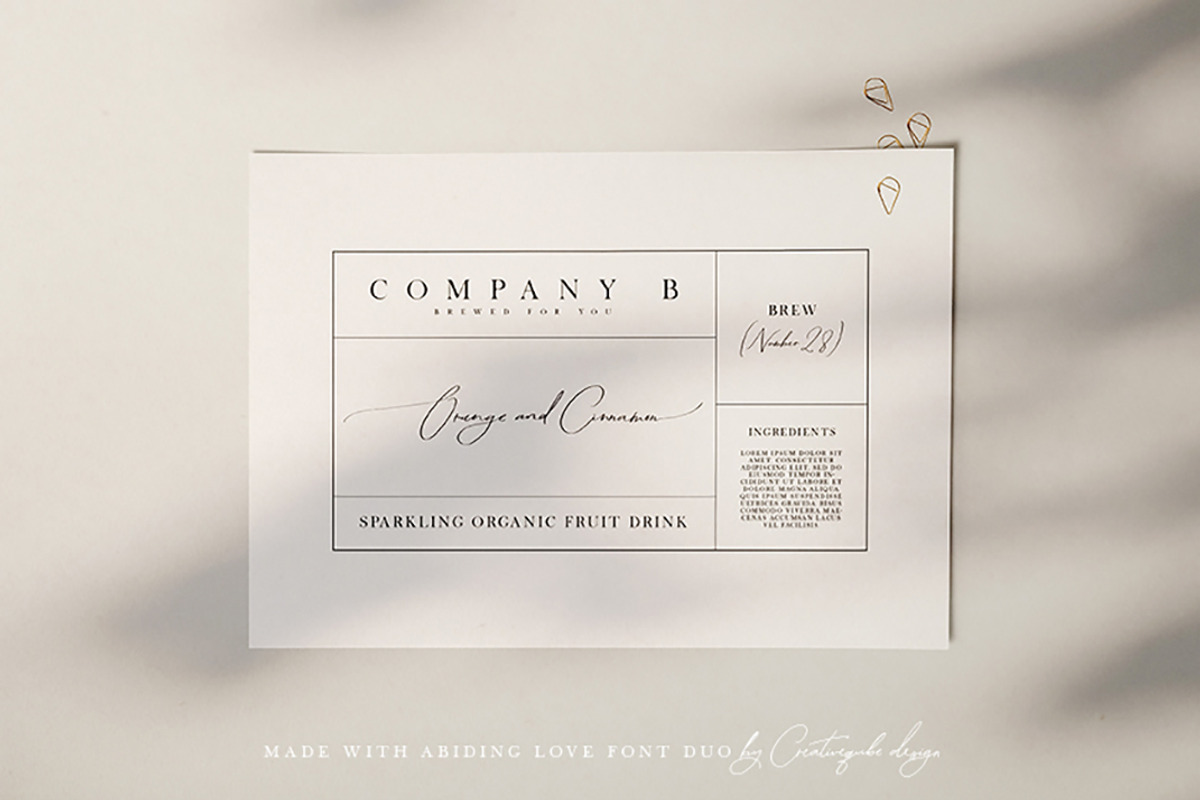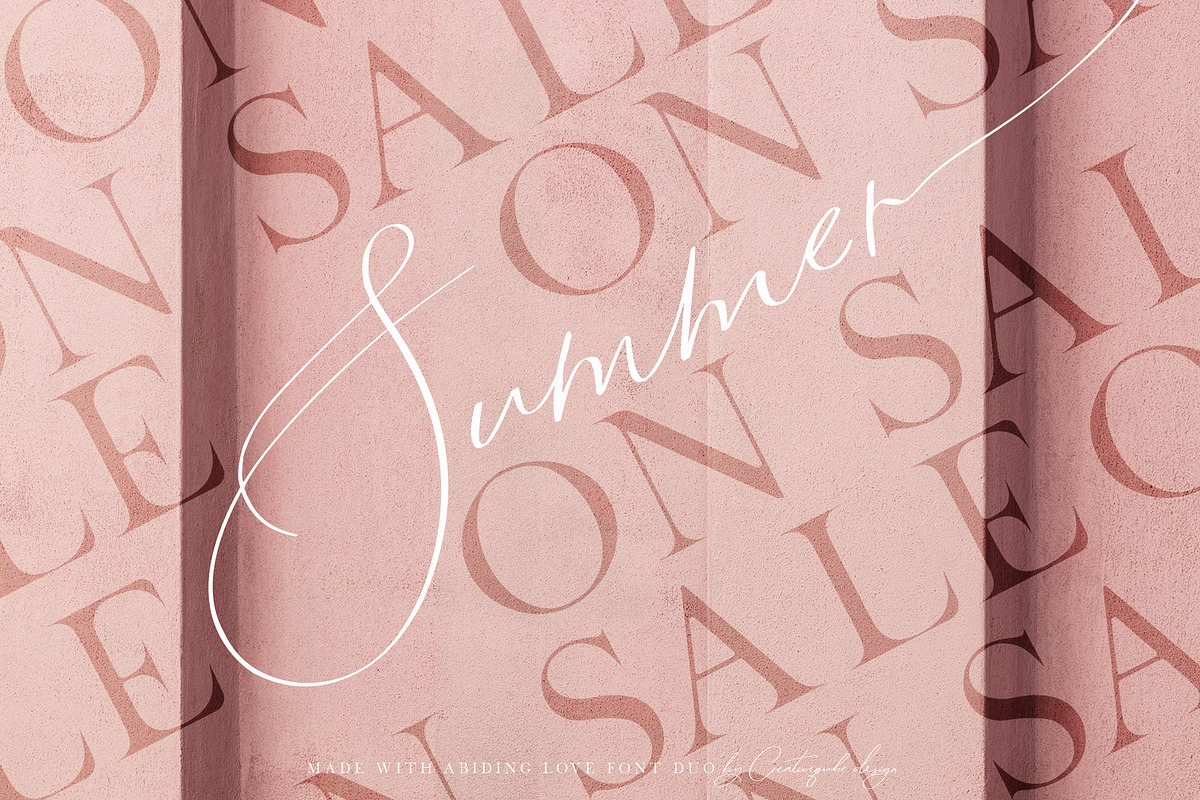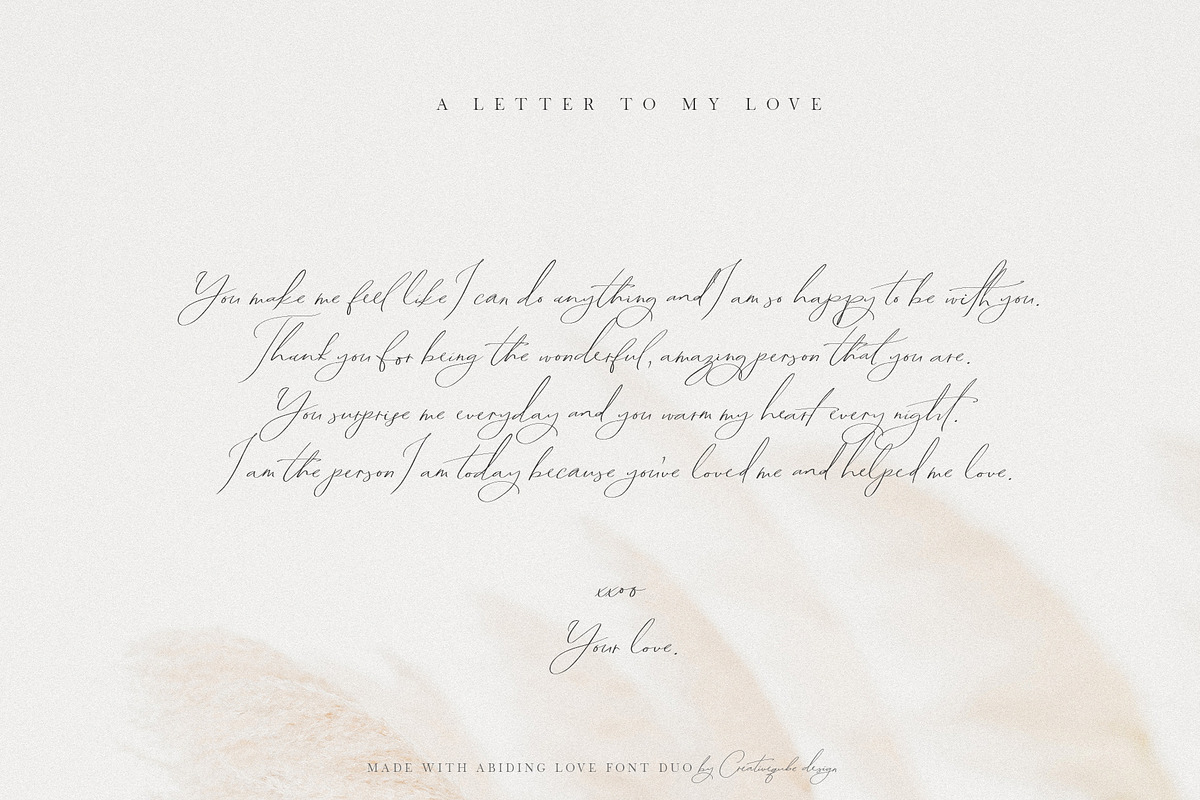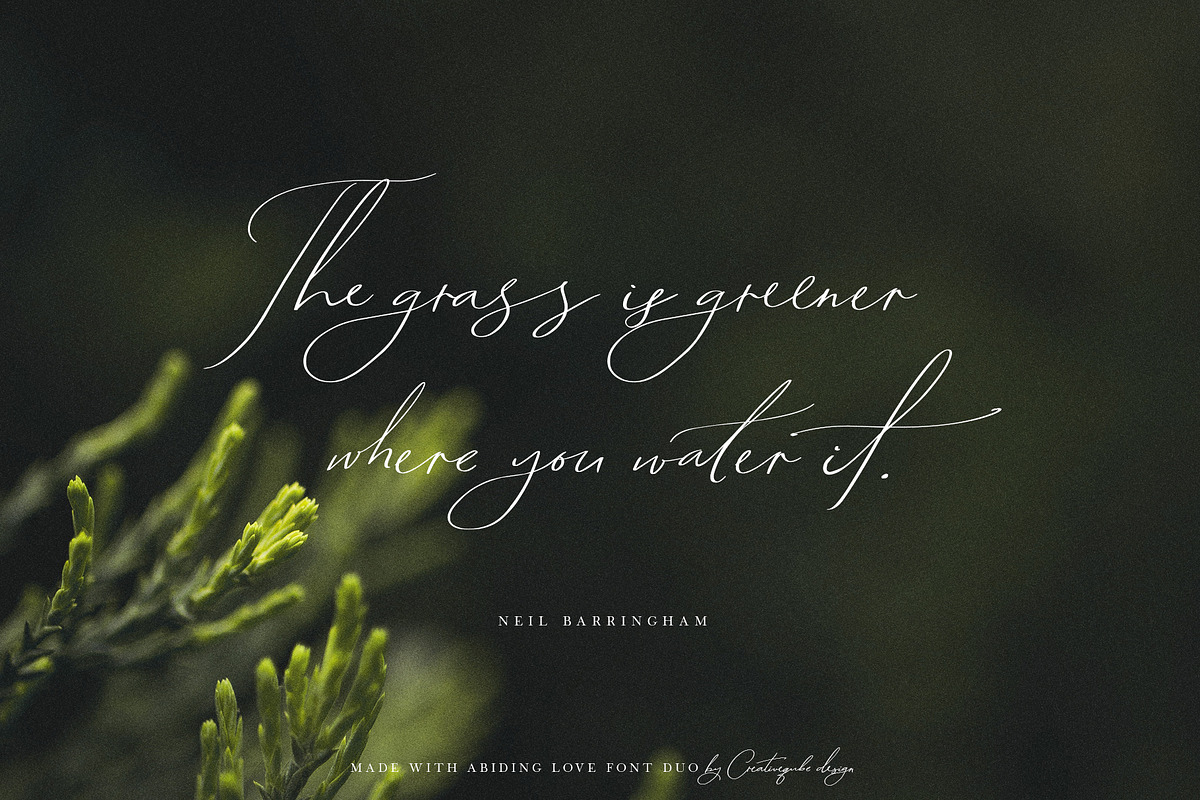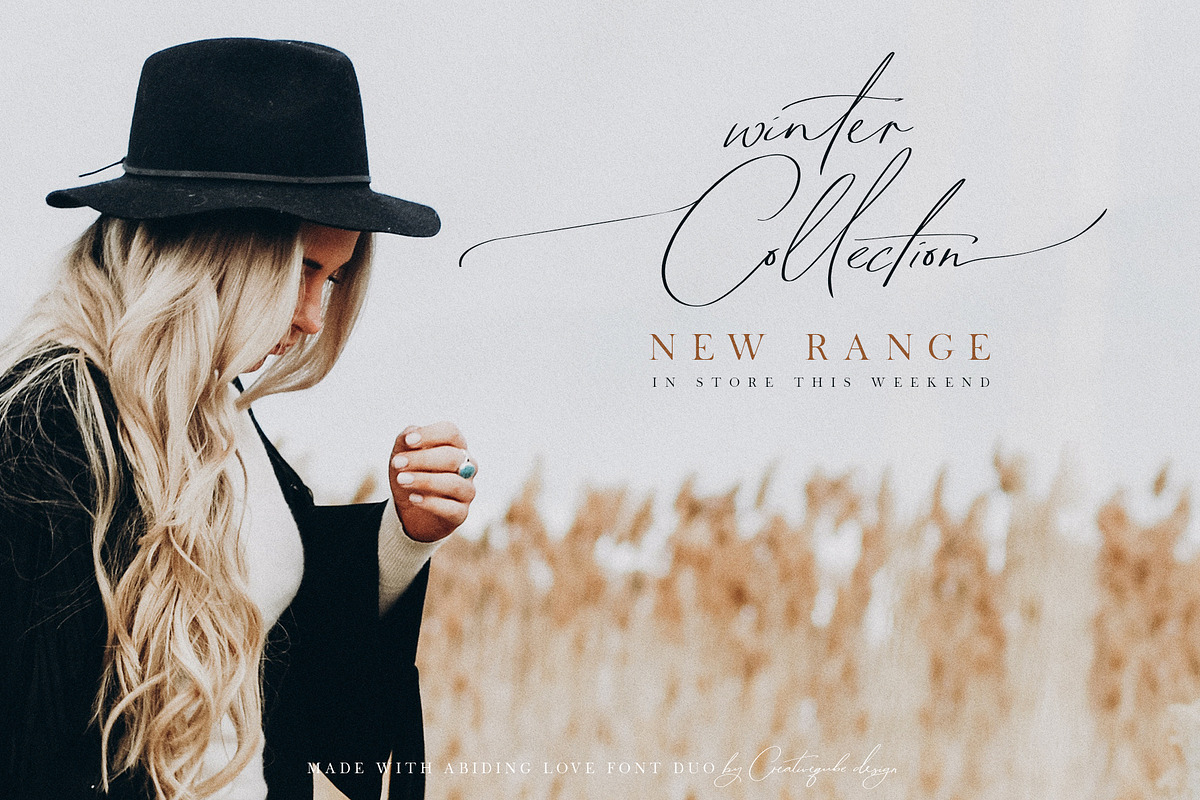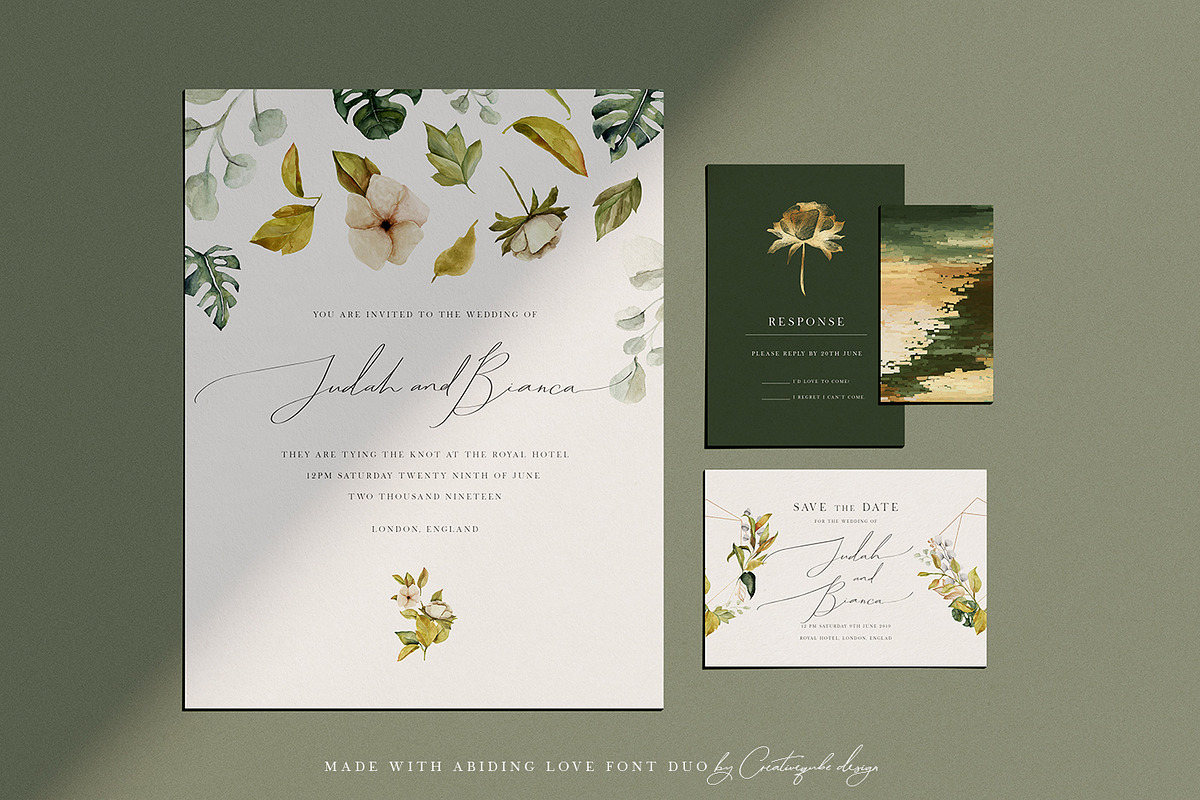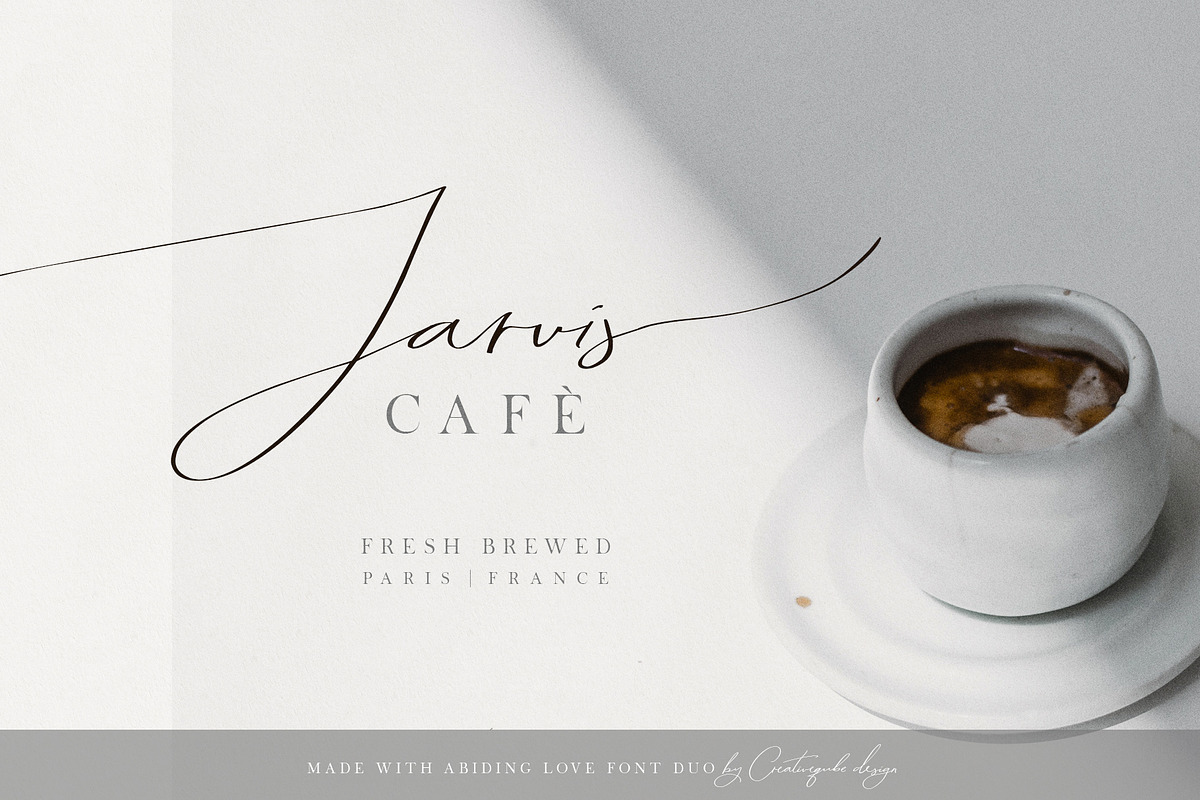
Abiding Love Collection Fonts
Abiding Love is a gorgeous trendy font duo that makes for stunning logos, quotes, wedding invites, blog posts, Instagram, and more!
They pair beautifully together in all kinds of applications. The serif looks gorgeous with tracking set at 300, as well as where it's normal setting at zero.
Abiding Love Script includes over 100 ligatures to make everything look perfectly natural and hand written, and there is a full set of lowercase alternates for each letter as well. These are set as ending letters in the regular script font file, (activate the Contextual Alternates button in the Character Panel to see this) plus as the standard letters in the Alternates font file. And then there is the Swashes set! These are in another font file name Abiding Love Swashes. There is left/beginning swashes for the uppercase and right/ending swashes for the lowercase. And last but not least there is a bold version of the 3 font files for when you need a bolder/heavier script!
Abiding Love Serif is an all uppercase serif font that just go's so well with the script.